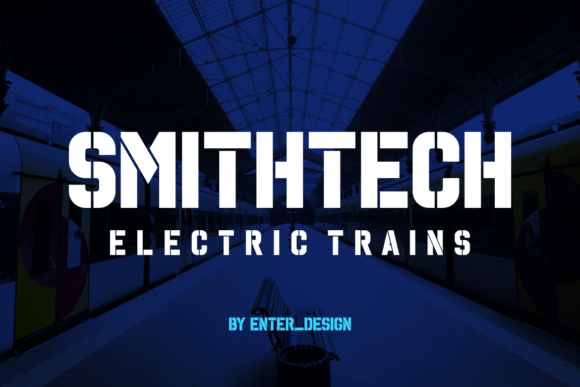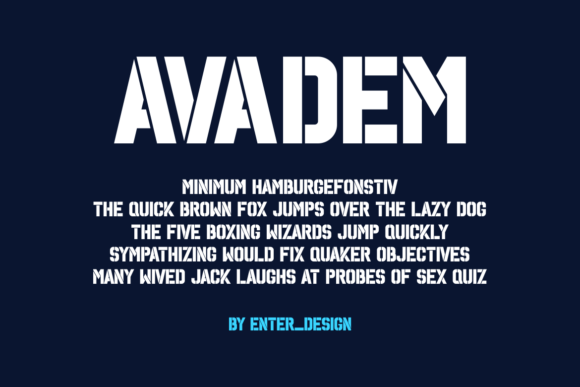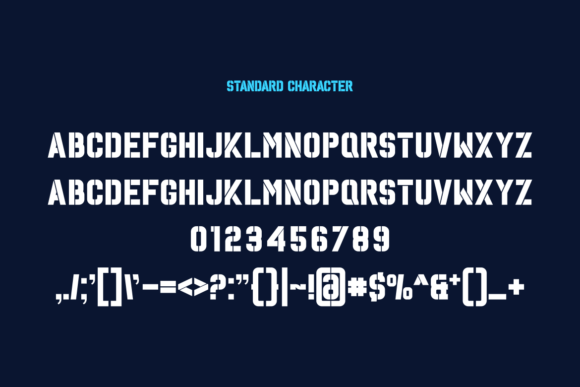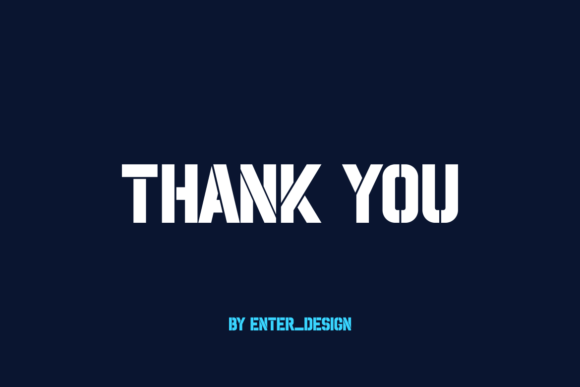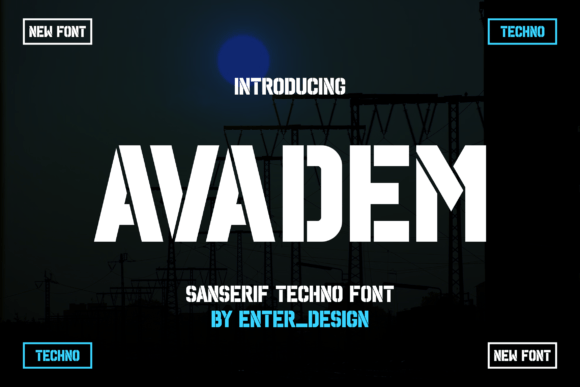
The Ultimate Design Game-Changer: Avadem Font
I’ll never forget the time I was working on a project for a bold and edgy client, and I just couldn’t seem to find the right font to match their vibe. I scoured the internet, tried out dozens of fonts, but nothing seemed quite right. That was until I stumbled upon Avadem Font. This bold and assertive sans serif font has been a game-changer for my design projects, and I’m excited to share my experience with you.
An Honest Review of Avadem Font
• ✨ **Versatility**: Avadem Font is incredibly versatile and can be used for a wide range of projects, from bold headlines to edgy logos.
• ✅ **Readability**: The font is clear and easy to read, even at small sizes, making it perfect for body text or captions.
• 💥 **Impact**: Avadem Font packs a punch and is sure to grab attention, making it perfect for titles, headings, or emphasis text.
While Avadem Font is an amazing addition to any design project, there are a few things to keep in mind:
• 🤔 **Limited script options**: Avadem Font is a sans serif font, so it may not be the best choice for projects that require a more elegant or cursive script.
• ⚠️ **Overuse**: Because Avadem Font is so bold and attention-grabbing, it’s easy to overuse it. Make sure to balance it with other fonts and design elements to avoid overwhelming your design.
A Practical Guide to Using Avadem Font
3. Experiment with different font sizes, colors, and styles to make the most of Avadem Font’s bold and assertive personality.
3. Take advantage of Avadem Font’s OpenType features, such as glyphs and stylistic alternates, to add more depth and interest to your design.
The Story Behind Avadem Font
Avadem Font was designed with the goal of creating a bold and assertive sans serif font that would make a statement. The designer wanted to create a font that would be perfect for headlines, titles, and emphasis text, while still being readable and versatile. The result is a font that’s both modern and edgy, with a unique personality that’s sure to elevate any design project.
Q: What type of projects is Avadem Font best suited for?
A: Avadem Font is perfect for projects that require a bold and assertive font, such as titles, headings, and emphasis text. It’s also great for logos, branding, and advertising.
Q: Can I use Avadem Font for body text?
A: While Avadem Font is clear and easy to read, it’s primarily designed for headlines and titles. For body text, you may want to consider a font with a more traditional or serif design.
Q: Is Avadem Font available in different weights or styles?
A: Yes, Avadem Font comes in a range of weights and styles, making it versatile and adaptable to different design projects.